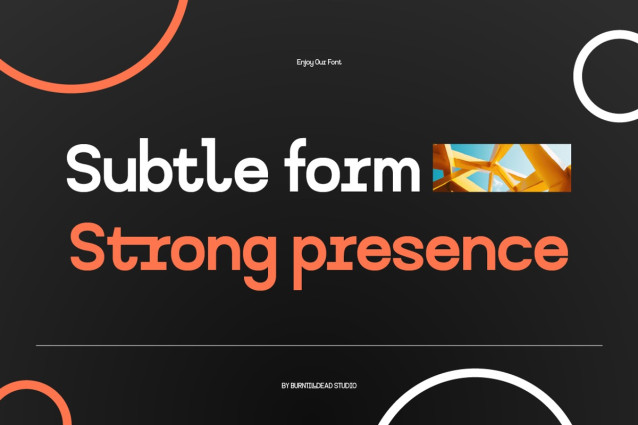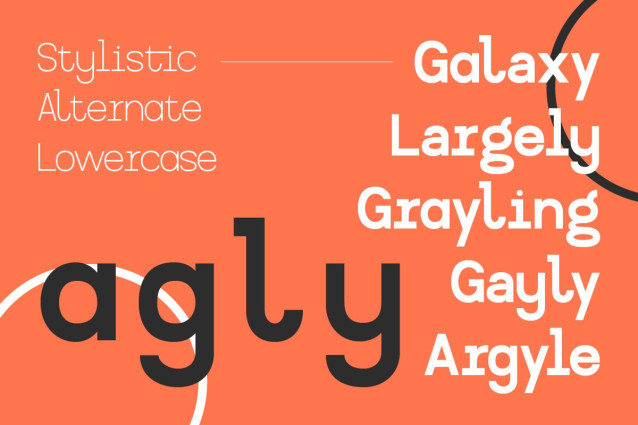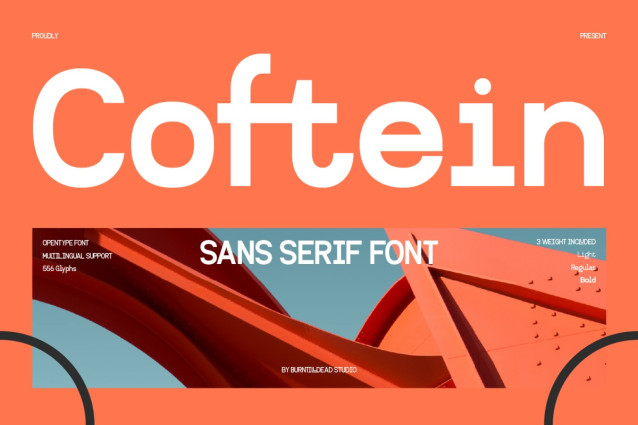
Coftein Font
Coftein Font — a modern sans serif font with a clean, attractive look and thoughtful design. It’s highly readable and has a modern style that works well for both body text and headings. With three different weights: Light, Regular, and Bold make Coftein flexible and easy to mix and match. For the example: the Light weight is great for long paragraphs, while the Bold weight is perfect for headlines. It can look both formal and casual, depending on how you use it. Coftein is ideal for logos, posters, digital content, social media, UI/UX design, packaging, magazine layouts, and any project that needs other creative projects.